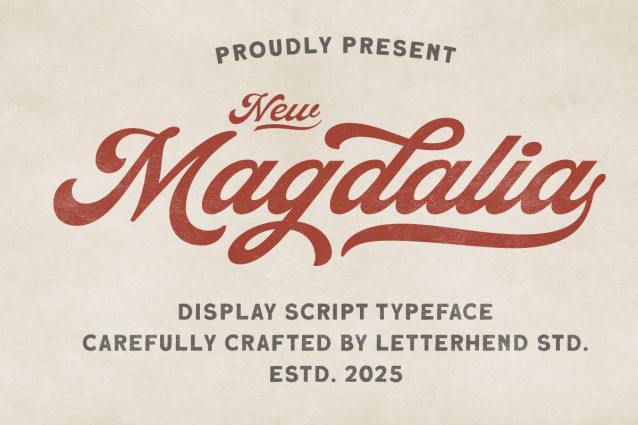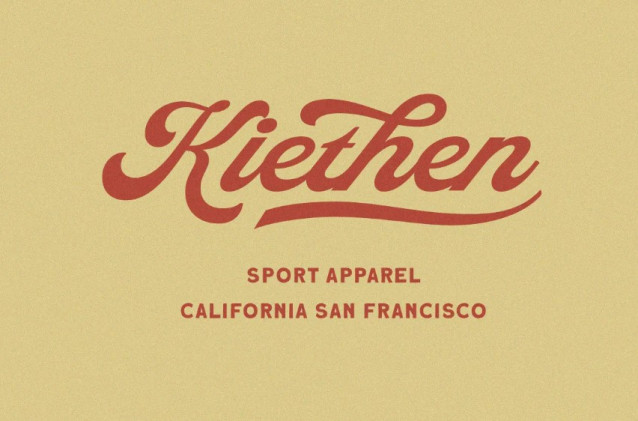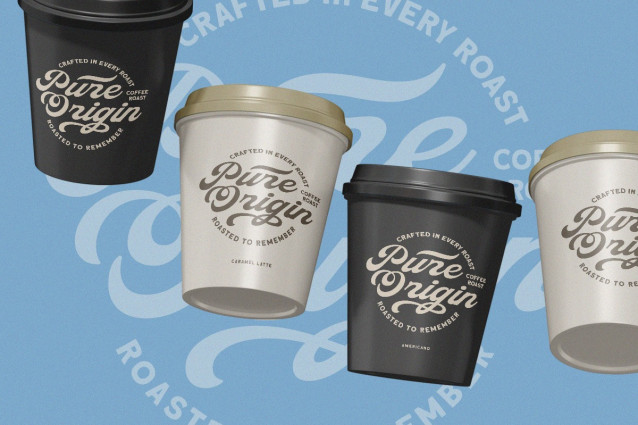
Magdalia Script Font
Magdalia Script Font is a vintage display script font that blends retro charm with a modern handcrafted touch. Its flowing strokes and stylish swashes make it perfect for logos, packaging, posters, apparel, or any design that wants to feel strong, classic, and full of personality.